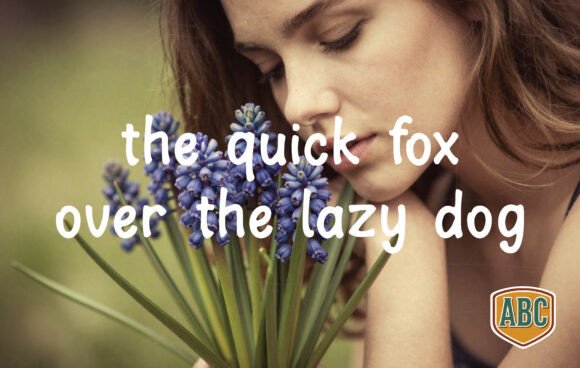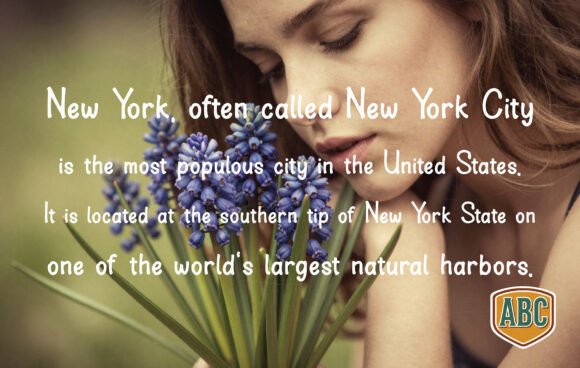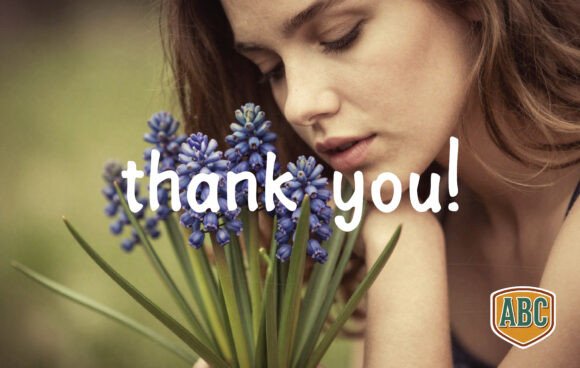
Introduction to Muscari Font
Muscari is a tall, expressive sans-serif with a handcrafted, slightly whimsical personality.
Its slender letterforms and natural line variations give it an organic flow that feels both modern and personal Perfect for boutique branding, artistic social media headers, and creative editorial work, Muscari brings a fresh, botanical energy to your design projects.